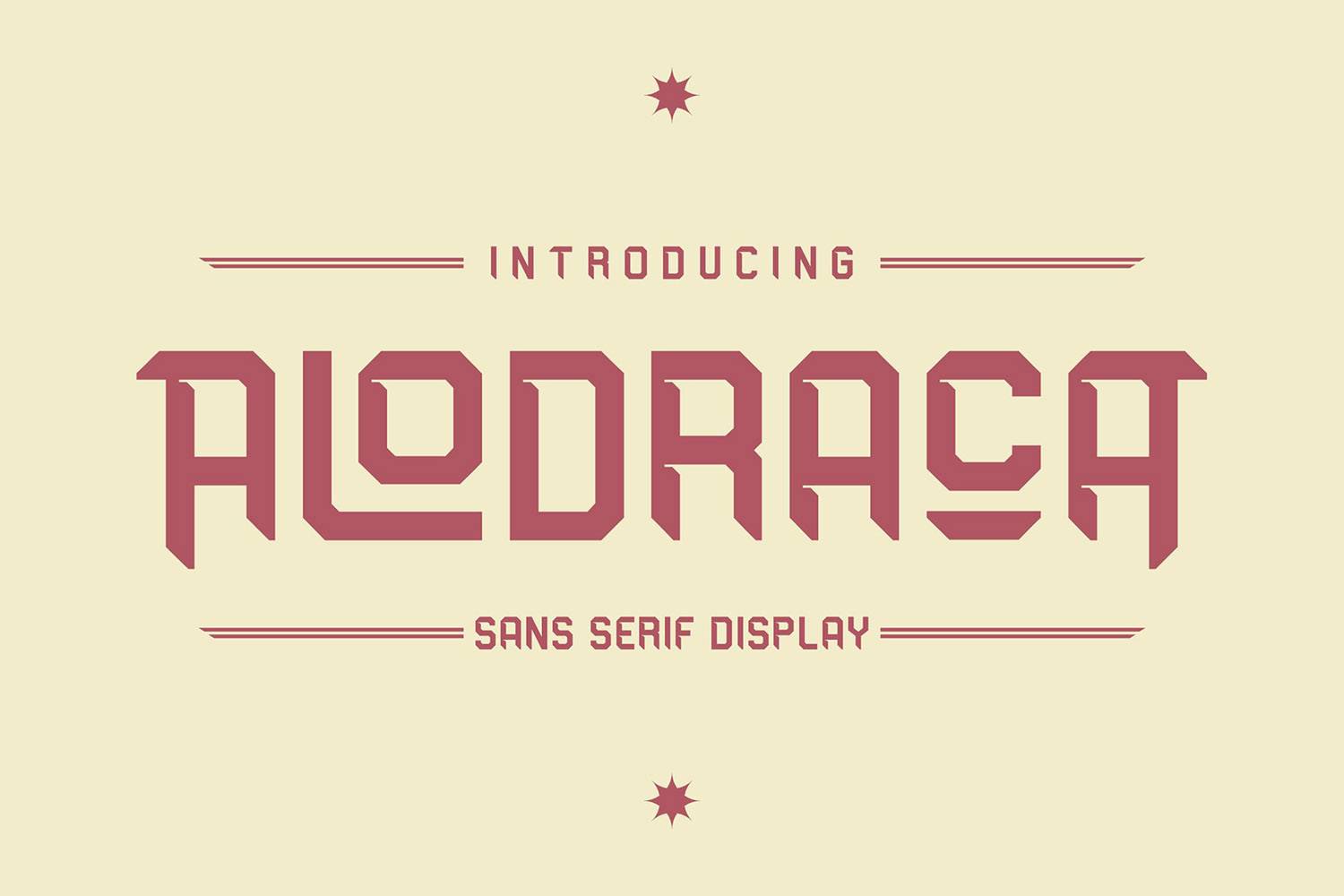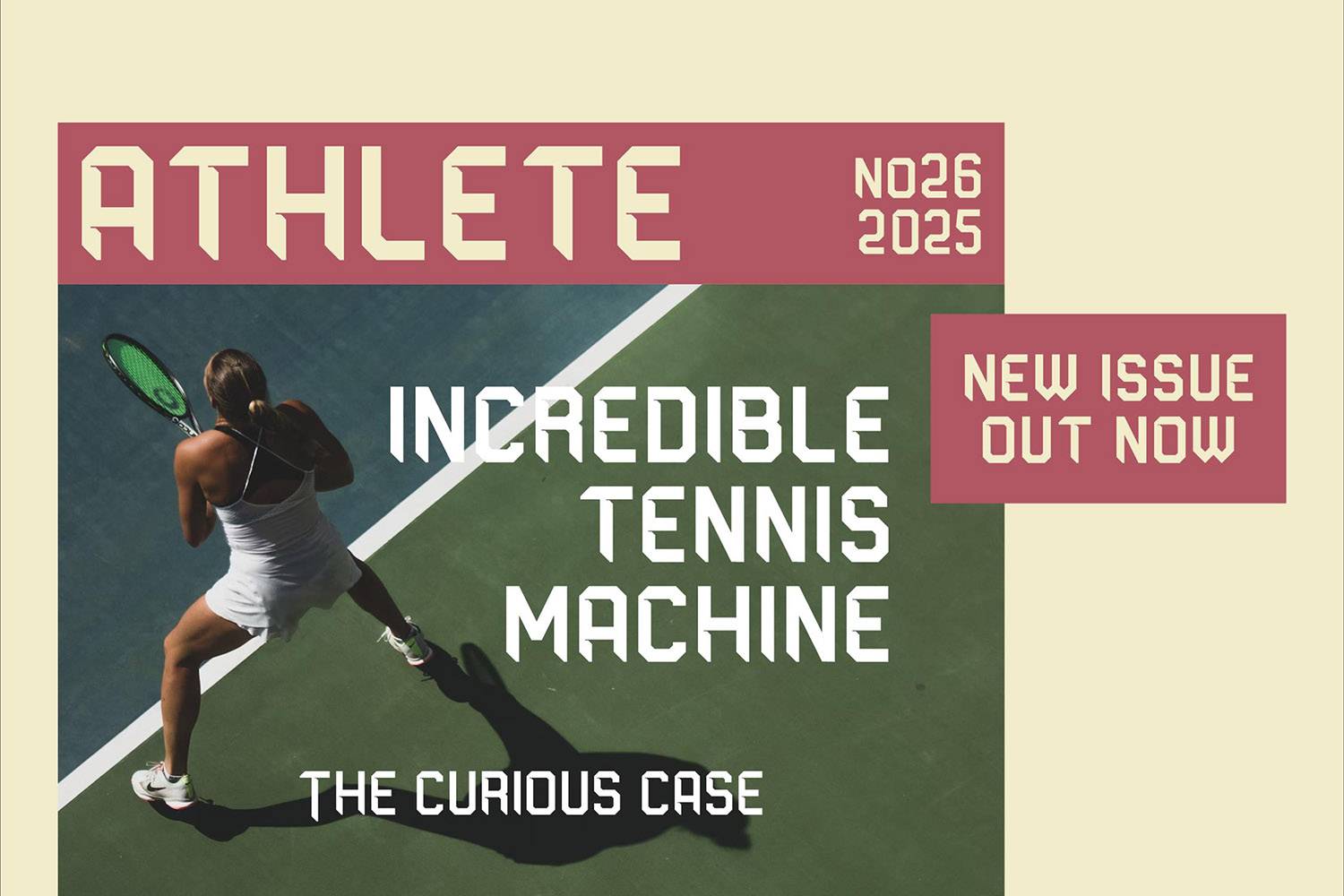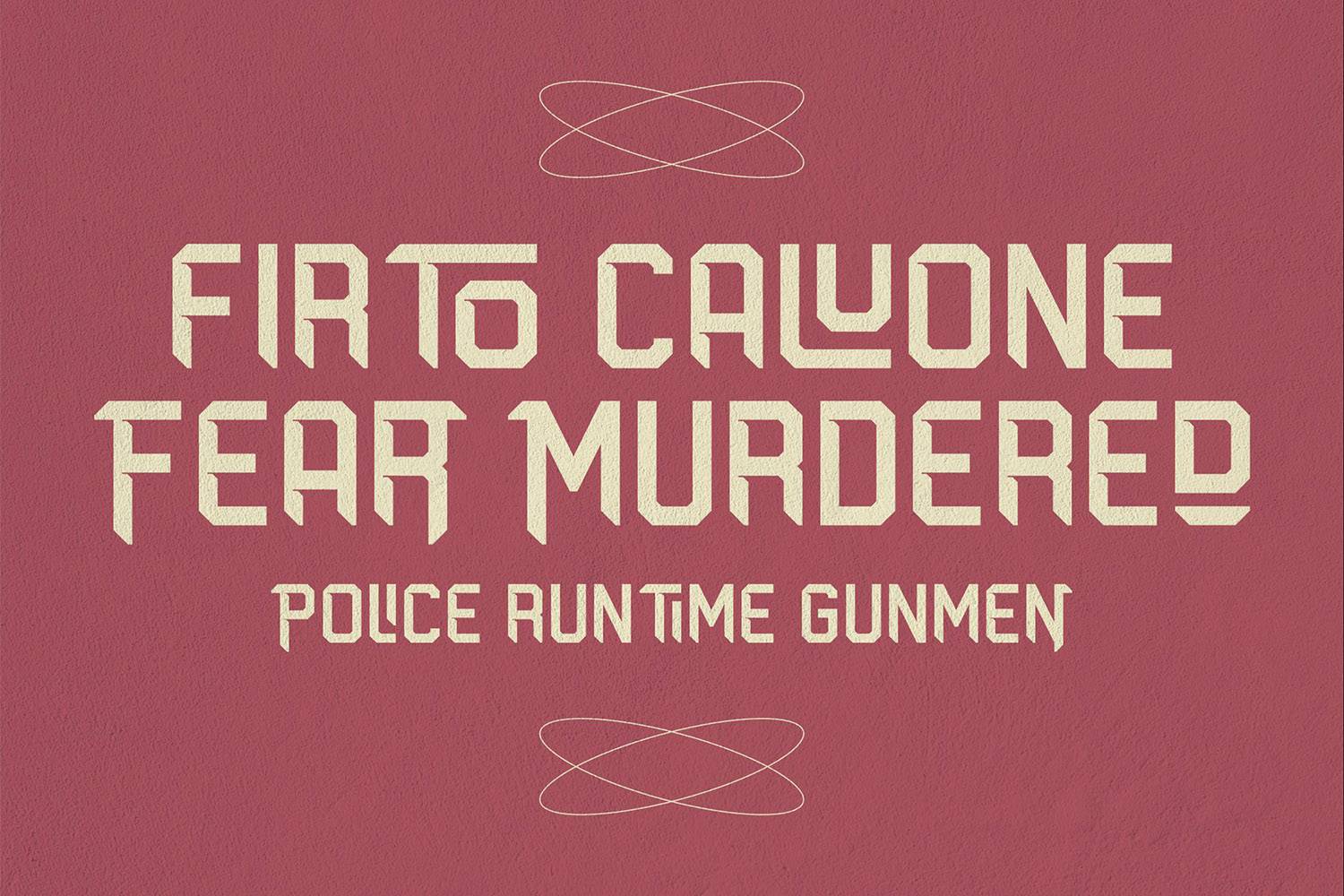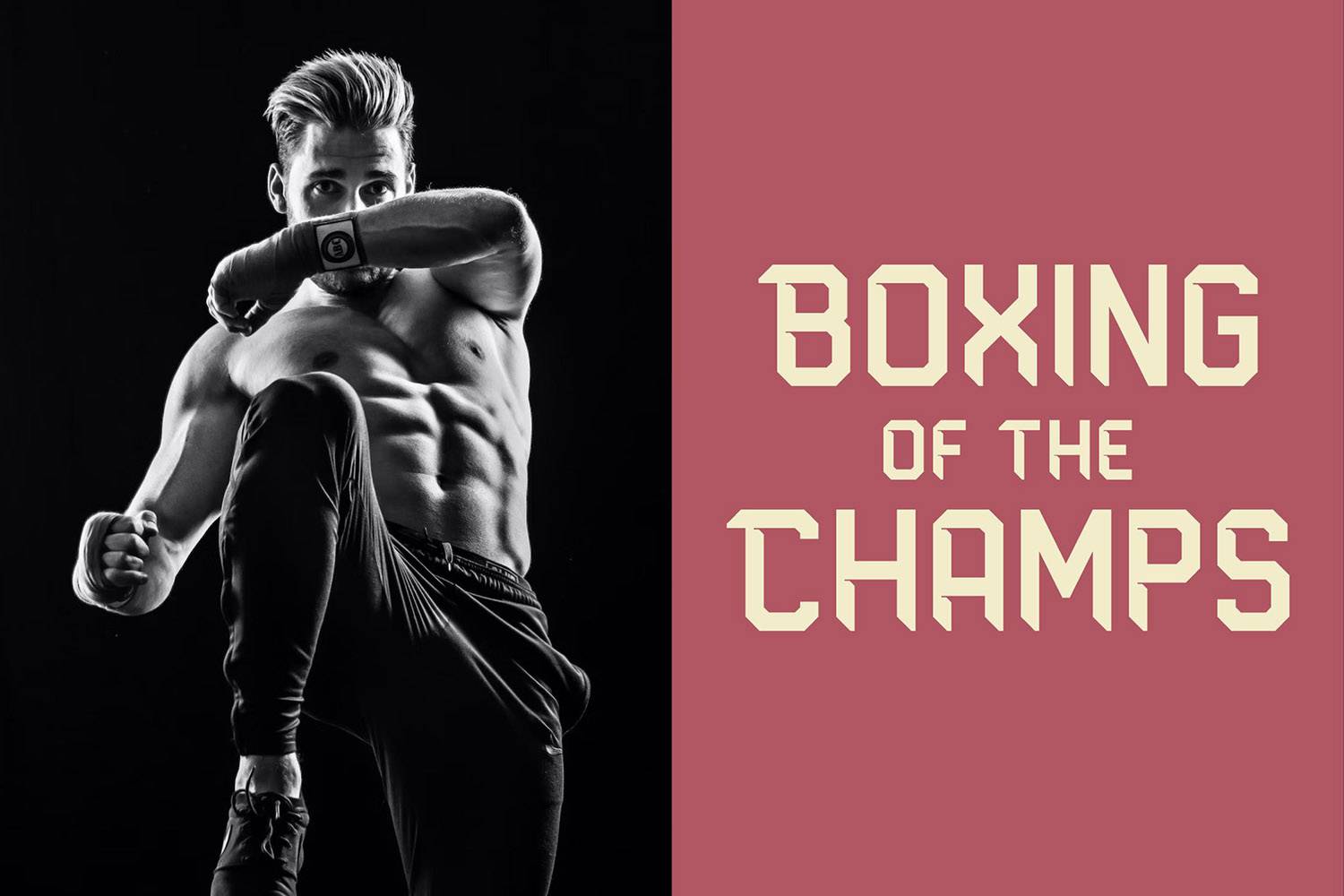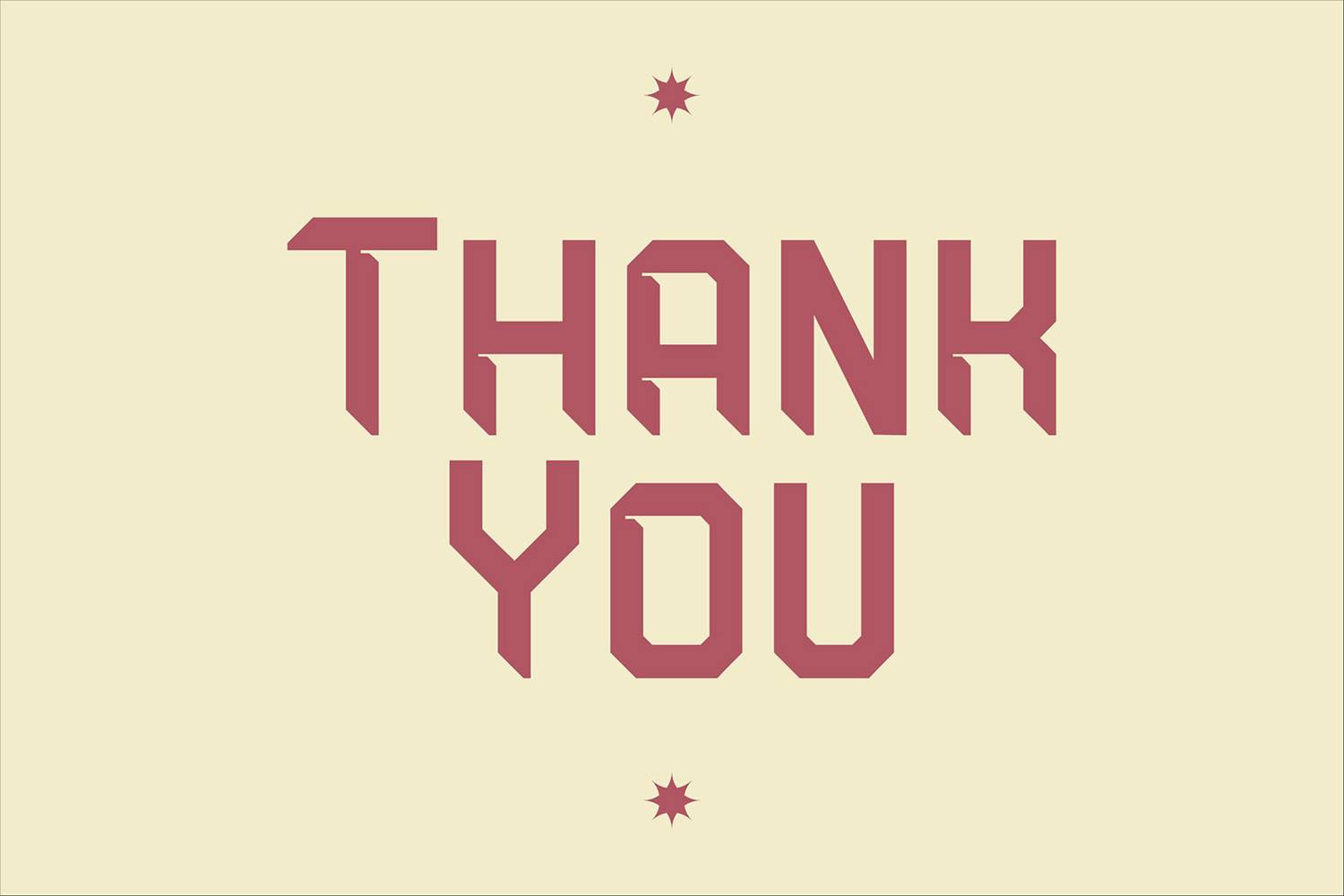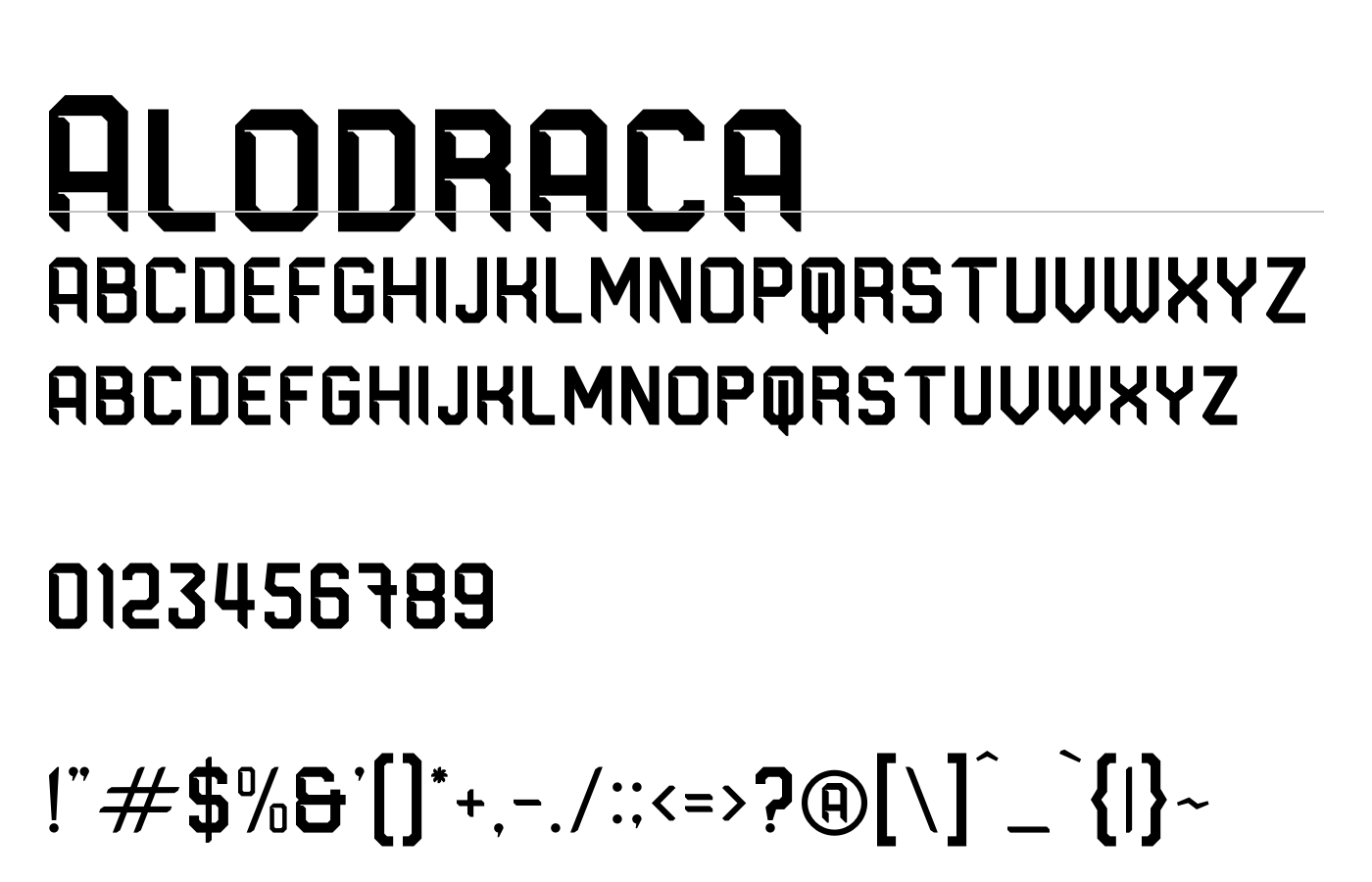
Alodraca is a bold, condensed sans serif font with a strong geometric and angular design, featuring sharp edges and unique cut-out details that give it a modern, tech-inspired feel. Its uniform stroke weight and high x-height make it highly legible, ideal for striking headlines or branding that demands a futuristic, industrial vibe. This font is perfect for use in logos, posters, and digital media where a bold, distinctive statement is needed.
Alodraca Font
About Alodraca Font